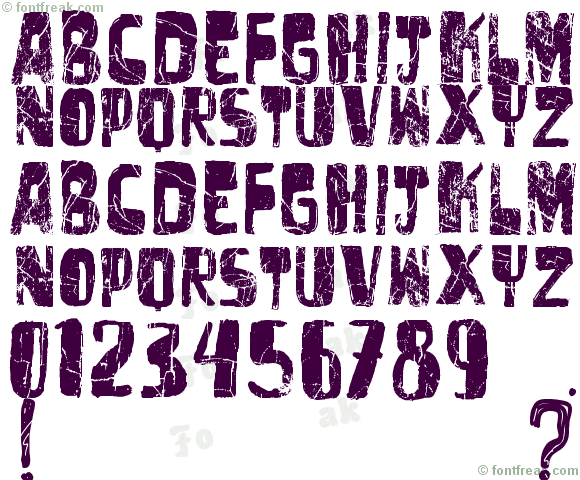
The vtks untitled font by Douglas Vitkauskas is a striking display typeface that captures attention with its unique character. Distinctly categorized as a decorative font, it features a rugged, distressed look that evokes a sense of raw creativity and artistic flair. The stroke weight varies, giving the letters a bold presence while maintaining an edgy, hand-crafted feel. With noticeable texture and imperfections, this font stands out in any design, making it ideal for projects that require a touch of individuality.
The visual characteristics of vtks untitled include a somewhat irregular baseline and a mix of thick and thin strokes that enhance its dynamic appeal. The spacing between letters is designed to create a balanced yet unconventional arrangement, allowing for easy readability despite its artistic style. The decorative elements, such as the distressed finish, add a layer of authenticity, making it feel less like a traditional font and more like a piece of art.
This font is particularly well-suited for use cases such as movie posters, where it can convey a sense of drama and intrigue. It also works beautifully on concert flyers, capturing the essence of live performances, or in branding for craft breweries and artisanal shops, where a unique aesthetic is crucial. Small business owners looking to create a memorable identity will find this font appealing, as will graphic designers and content creators seeking to make a statement.